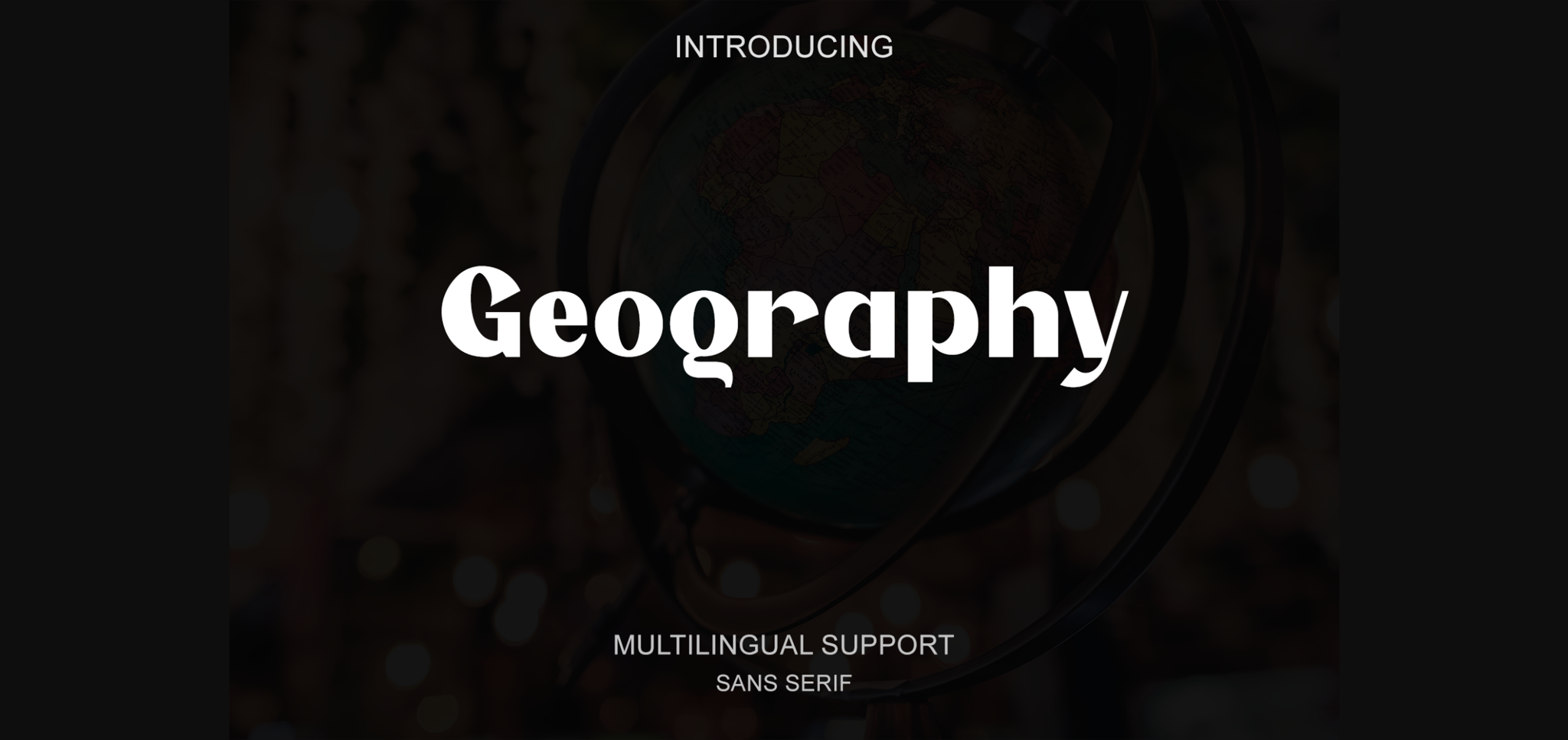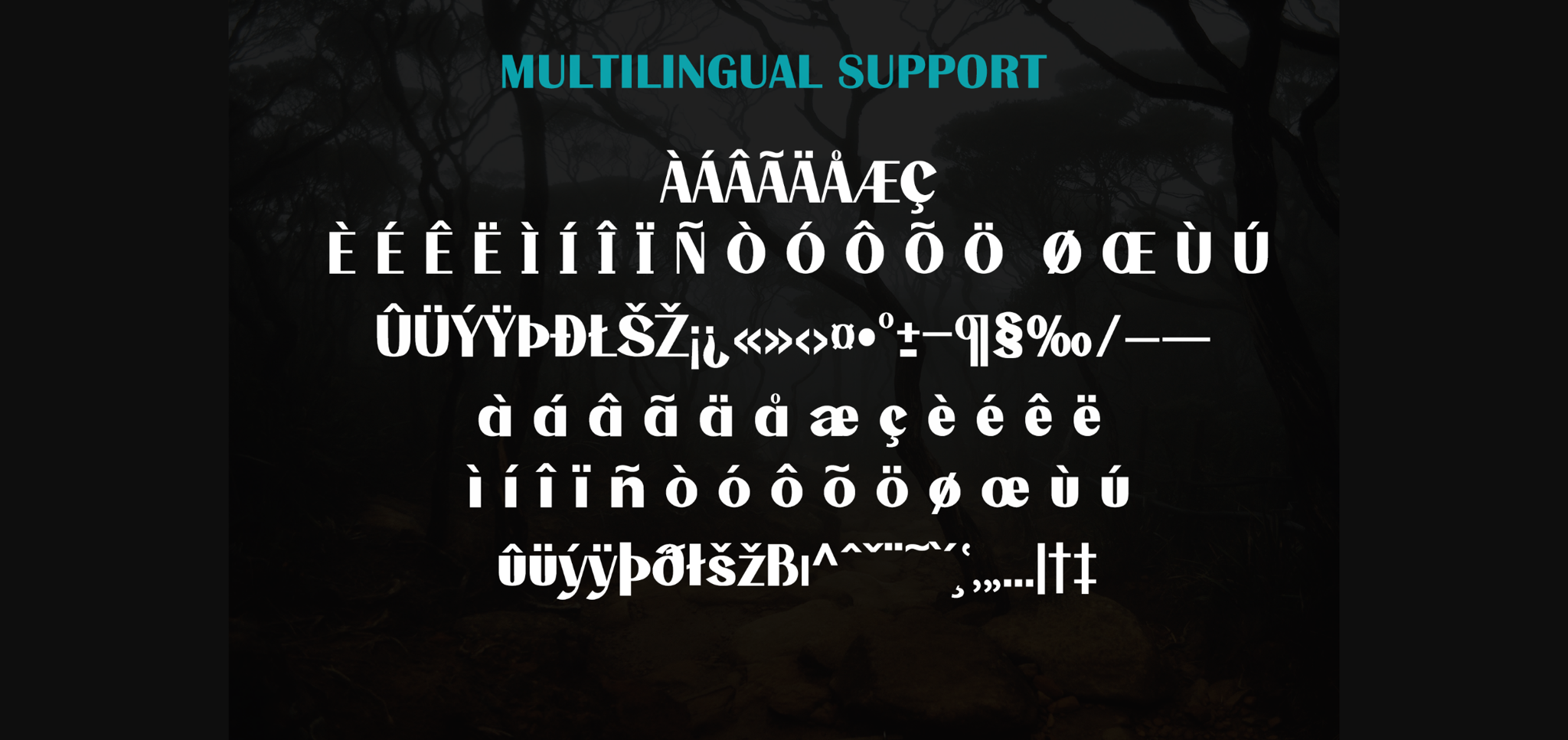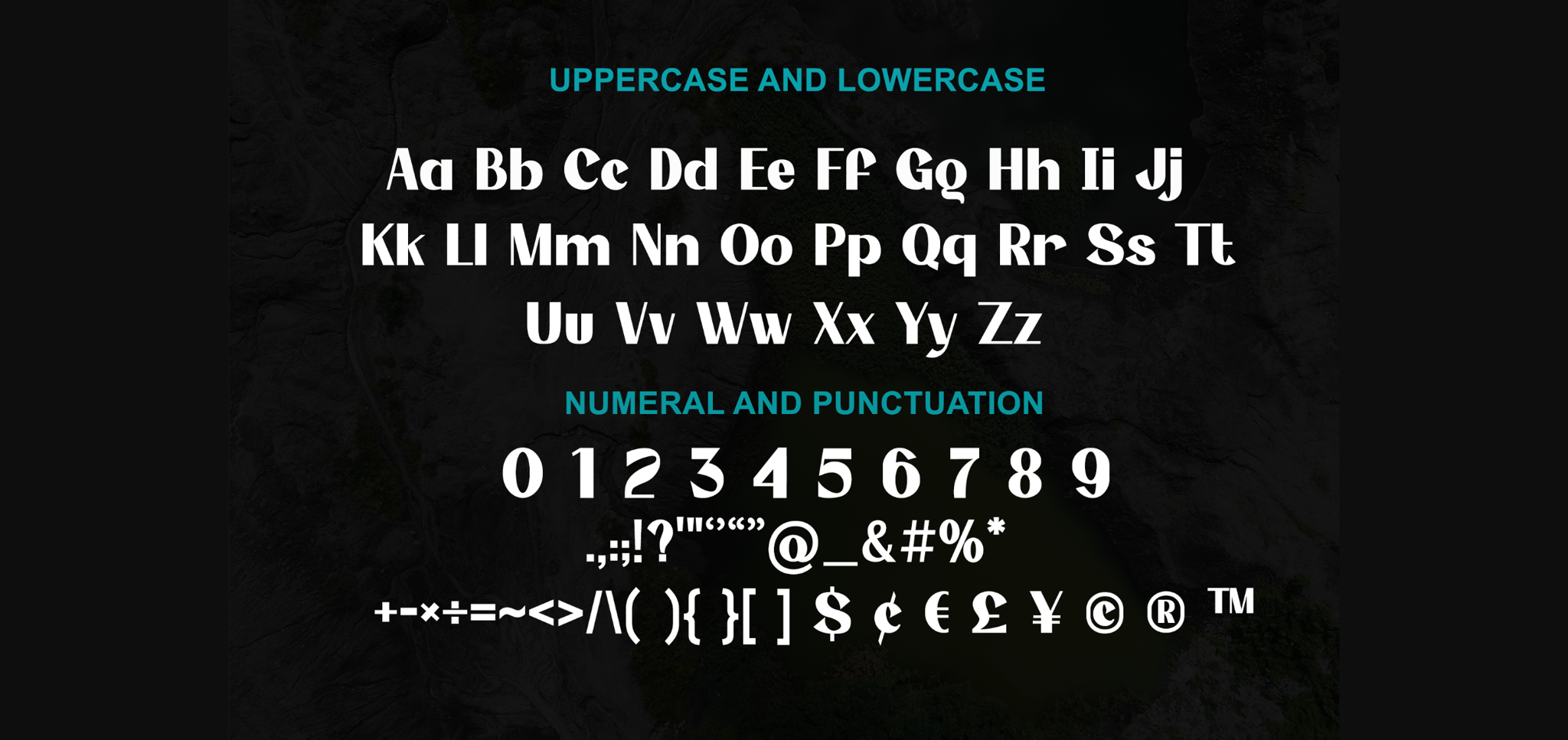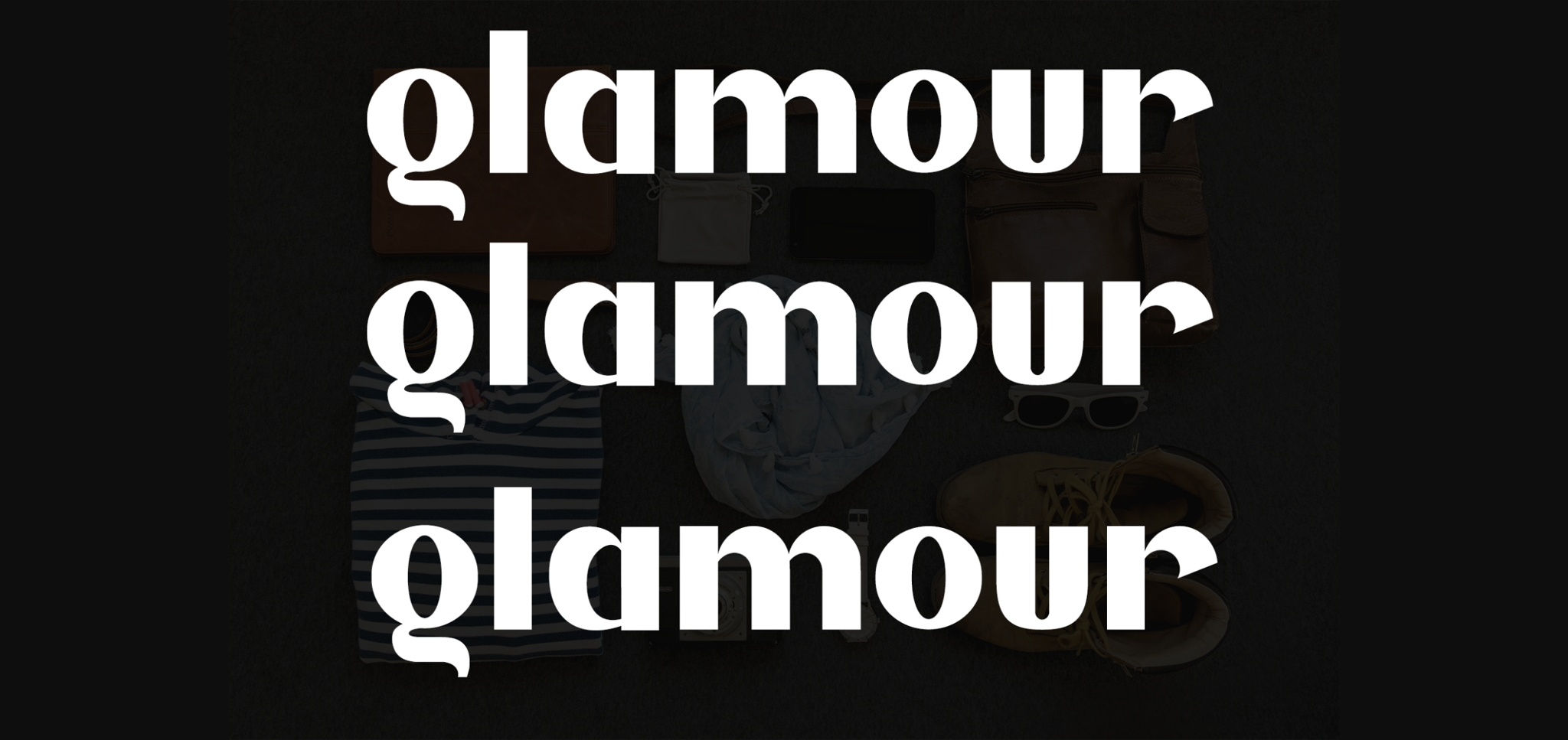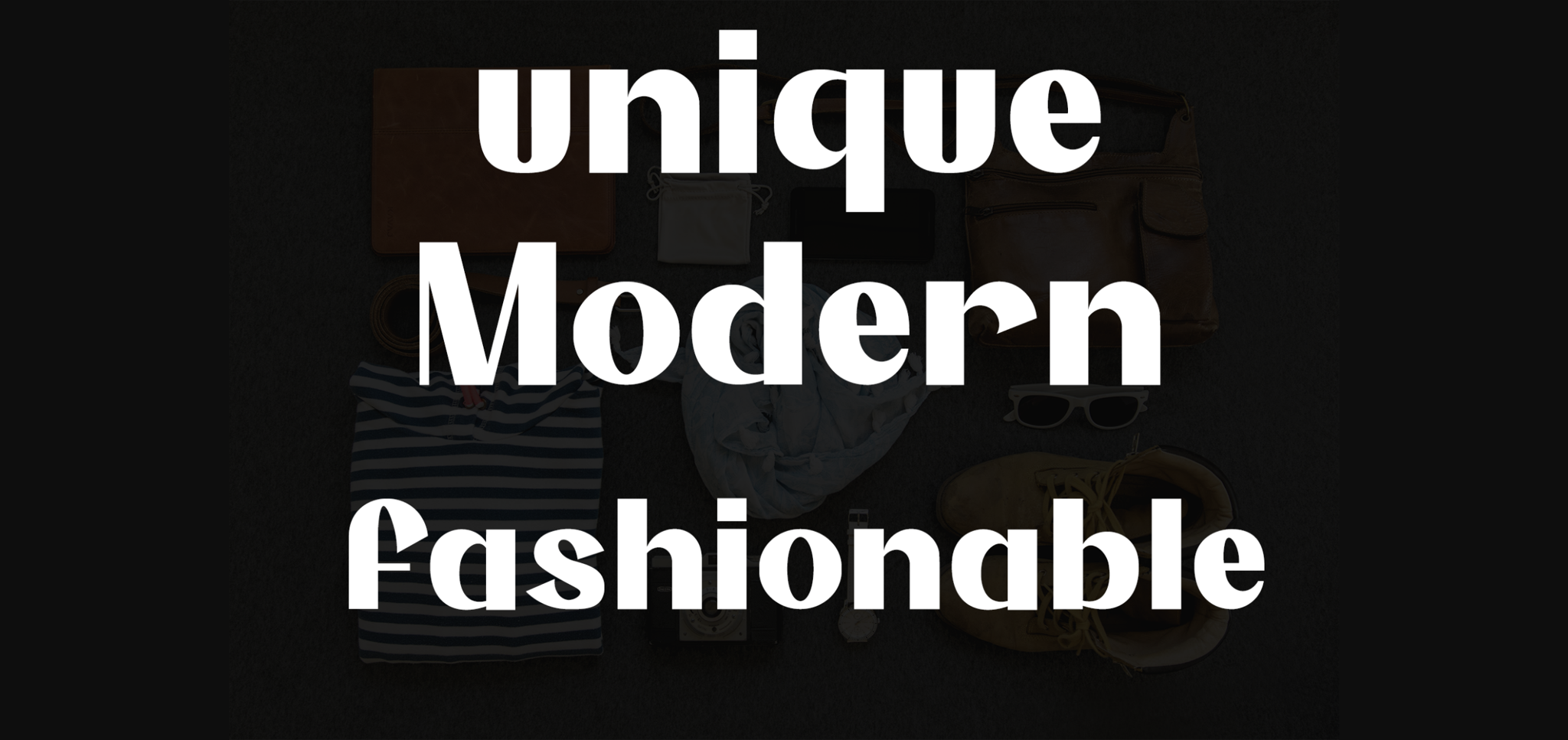
About Geography Font
Geography is a Beautiful Sans Serif font. Inspired by the beauty of nature. The font looks beautiful and modern. Suitable for any design needs, branding, logo, urban design, modern advertising design, Book/Cover Title, special events, adventures, headlines, clothing, and more.